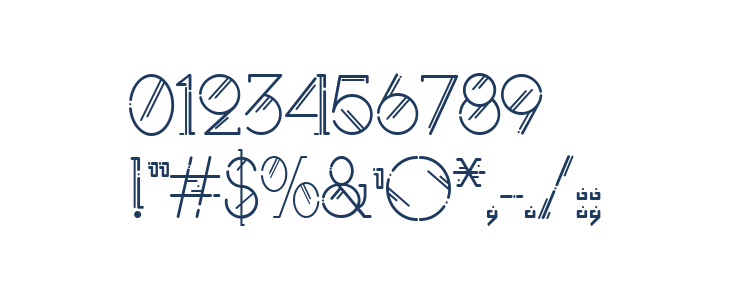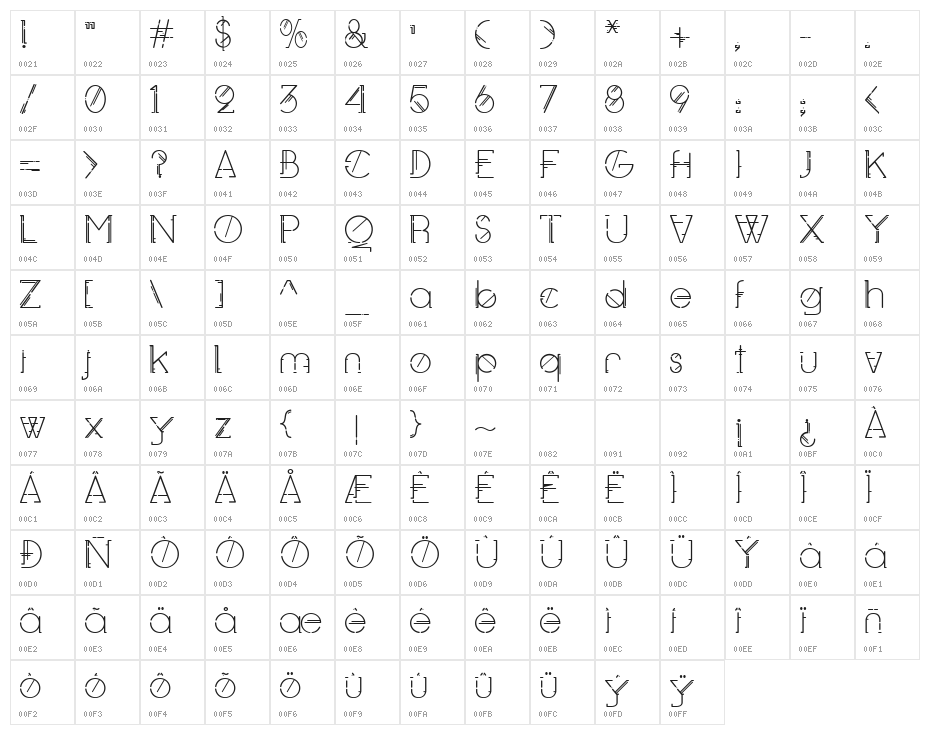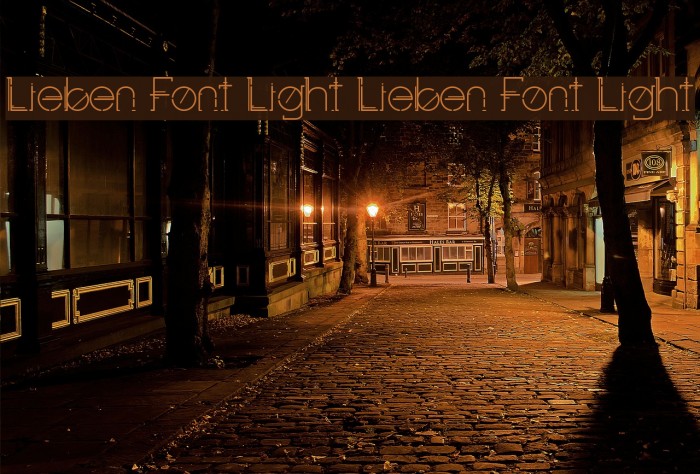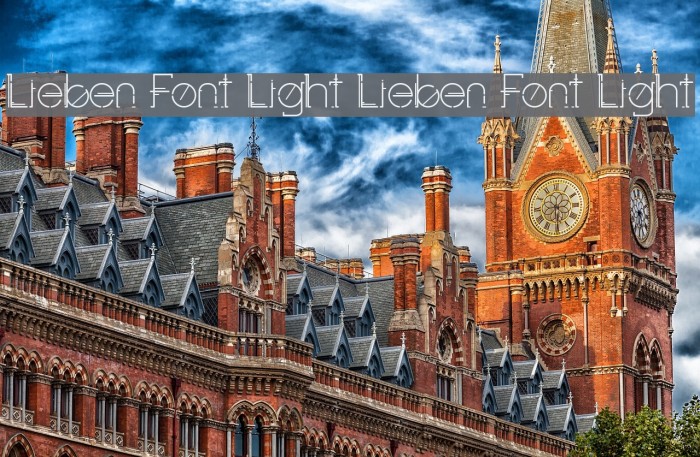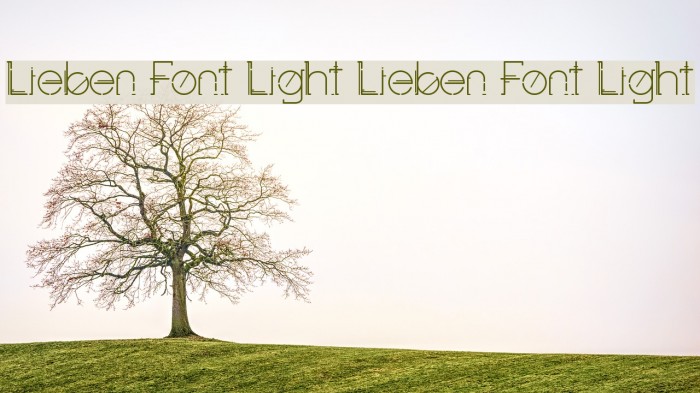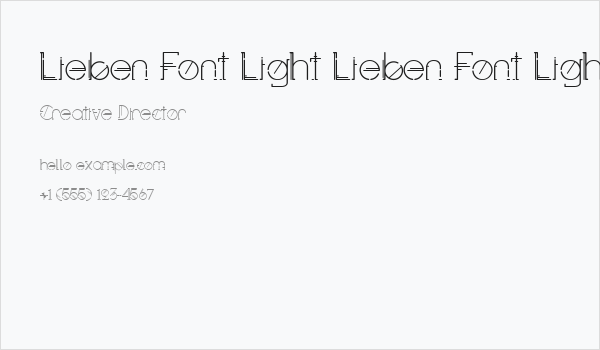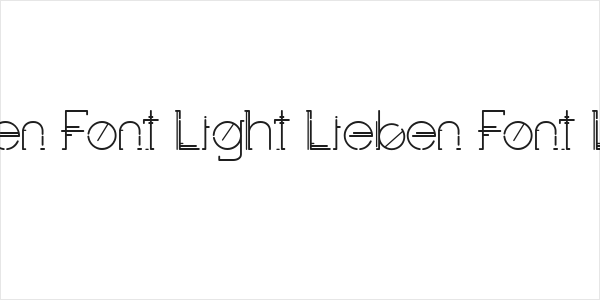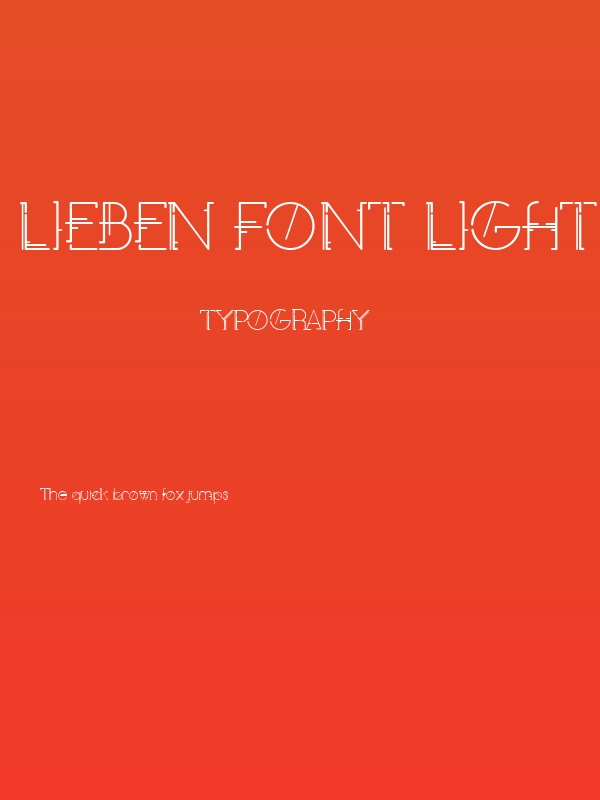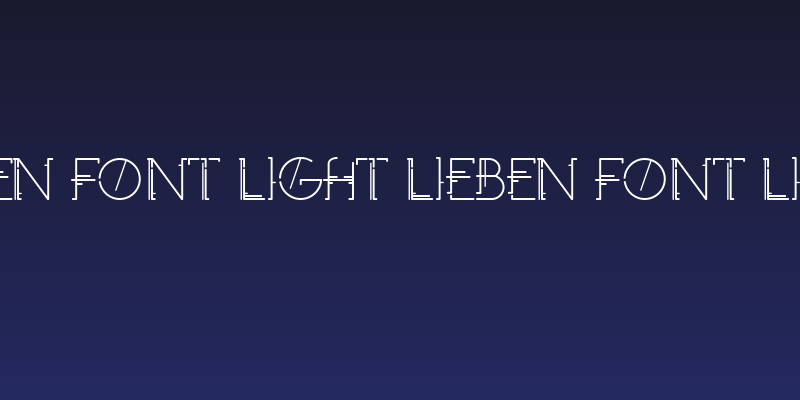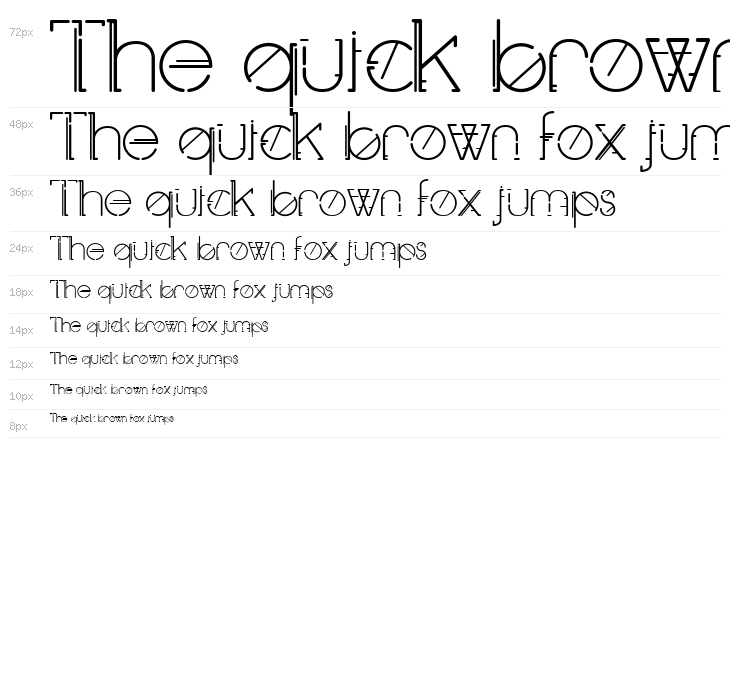
Lieben Font Light Font
Lieben Font Light Description
This font features a unique and modern design with a geometric and minimalist aesthetic. The characters are composed of thin lines and circular elements, creating a futuristic and stylish appearance. The uppercase and lowercase letters maintain a consistent style, with some characters incorporating distinctive cuts and angles. The numerals and special characters follow the same design principles, ensuring a cohesive look throughout. This font's light weight and open structure make it suitable for projects that require a contemporary and airy feel.
| Use Case | Logos, Posters, Digital Media |
| Proposed Projects | Ideal for branding, logos, posters, and digital media that require a modern and stylish look. |